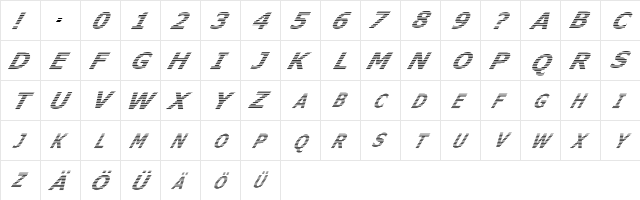
Where is the rest Italic
Design Context for Where is the rest Typeface
Where is the rest is a composed and adaptable typeface that performs quietly and consistently across a wide range of design contexts. The slanted form adds forward momentum and visual energy.
Pro Tip: Try Where is the rest for annotation and caption copy alongside an upright companion — the contrast in angle creates a dynamic but ordered typographic system.